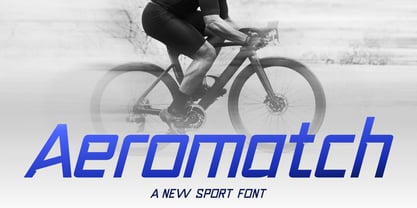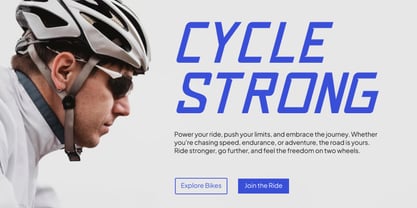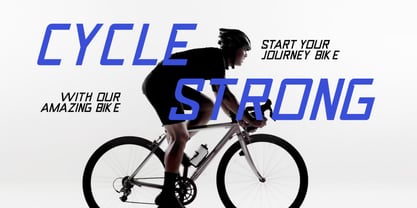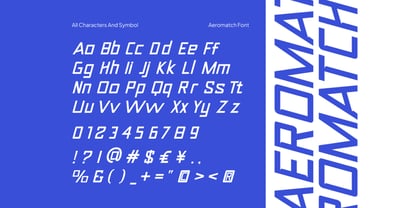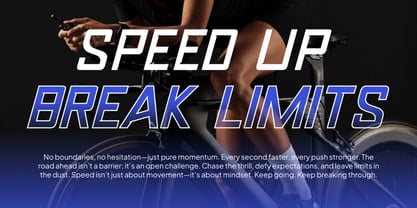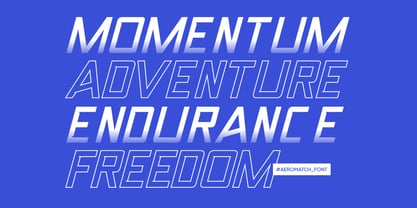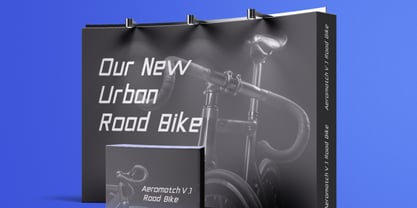
Aeromatch
Aeromatch is a bold and modern sports typeface designed for high-impact athletic branding. With sharp, dynamic letterforms and a confident presence, this font is ideal for sports teams, gym promotions, fitness apparel, and motivational posters. Its strong and masculine look makes it perfect for logotypes, magazine headlines, and dynamic display use across digital and print platforms. Aeromatch brings energy and power to any design needing a competitive edge.
Suitable For sport branding, gym poster, athletic logo, fitness ads, magazine title, dynamic layout, masculine theme, bold headings, college design, game promo, team jersey, modern flyer, event signage, bicycle ads, running campaign, sportswear label, bold typography, social media graphic, logotype design, workout template.